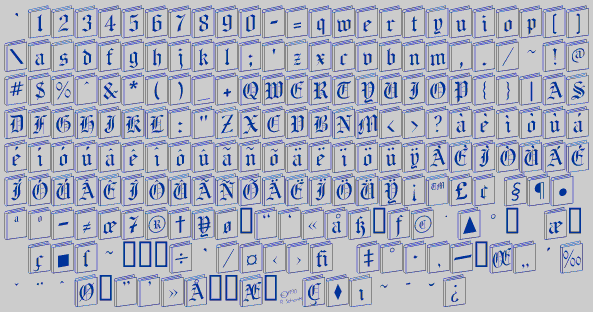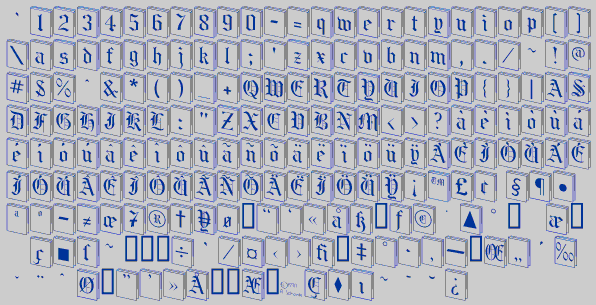
NewLibrary updates one of my early designs, one in which the letters are on books. Though the original had a certain charm, it also had some serious problems. The NewLibrary will, I hope, have fewer problems.